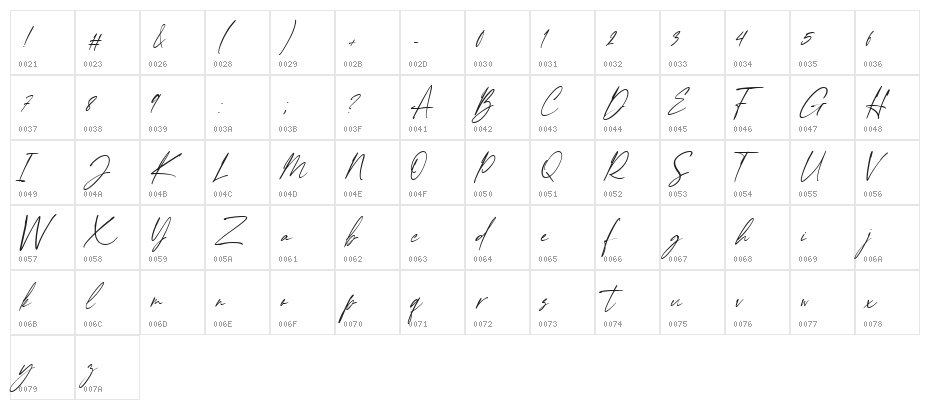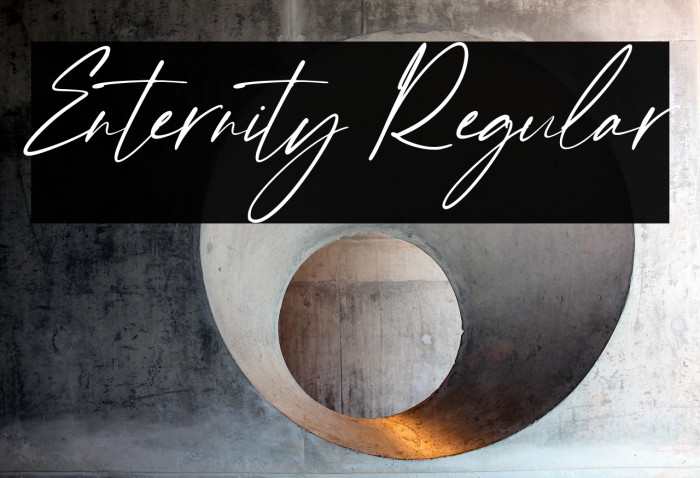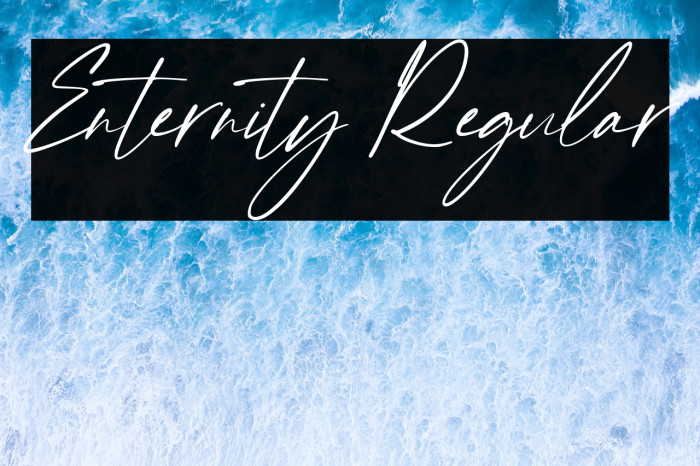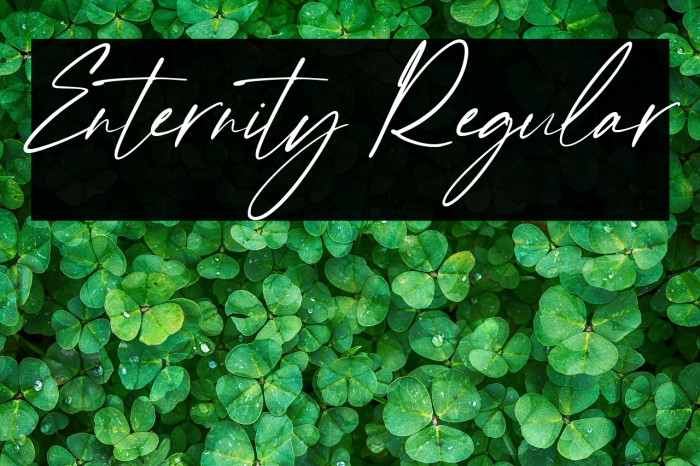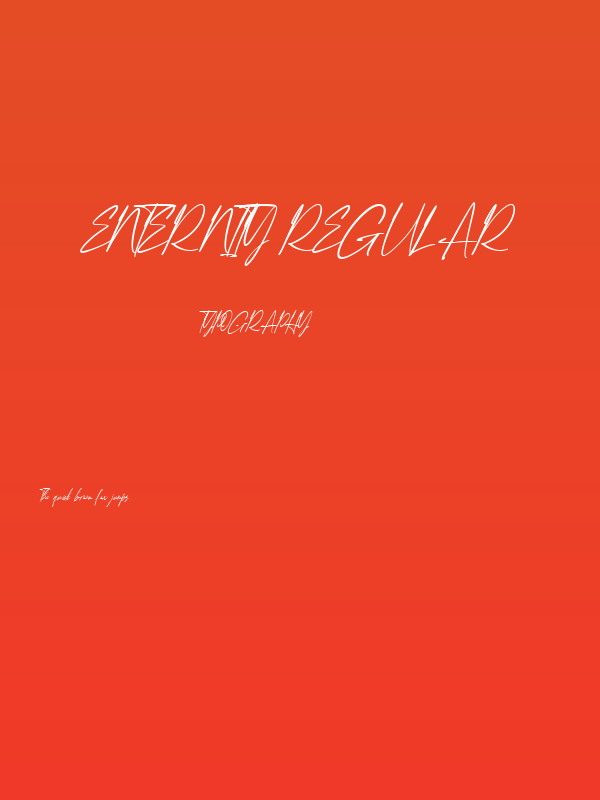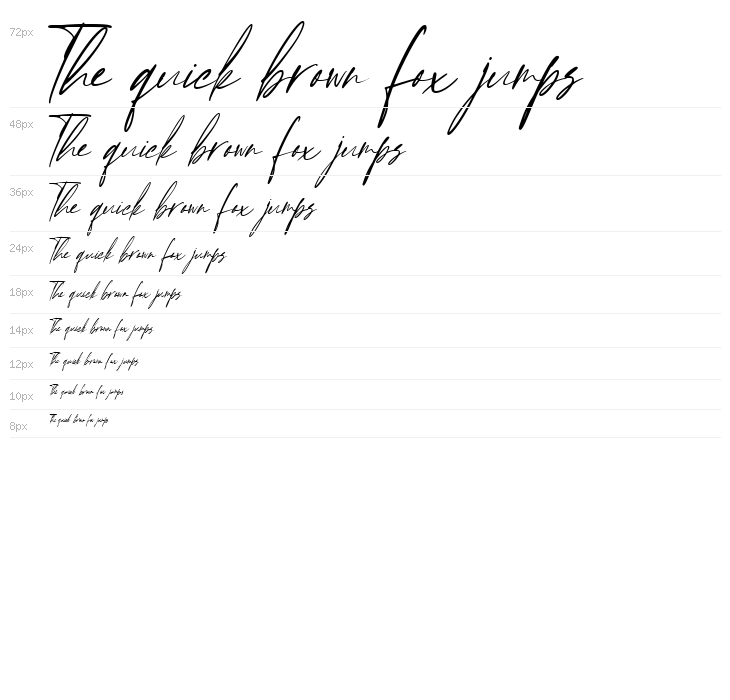
Enternity Regular Font
Enternity Regular Description
This font exhibits a dynamic and flowing script style, characterized by its elegant and fluid strokes. The uppercase letters are bold and sweeping, with a sense of movement that adds a dramatic flair. The lowercase letters maintain a consistent rhythm, with smooth connections between characters, enhancing readability. The numerals are stylishly integrated, complementing the overall aesthetic. Special characters are crafted with the same attention to detail, ensuring a cohesive look across all glyphs. This font's design is both sophisticated and expressive, making it suitable for a variety of creative applications.
| Overall Style | Elegant |
| Use Case | Logos, Invitations, Branding |
| Proposed Projects | Ideal for wedding invitations, branding, logo design, and elegant stationery. |